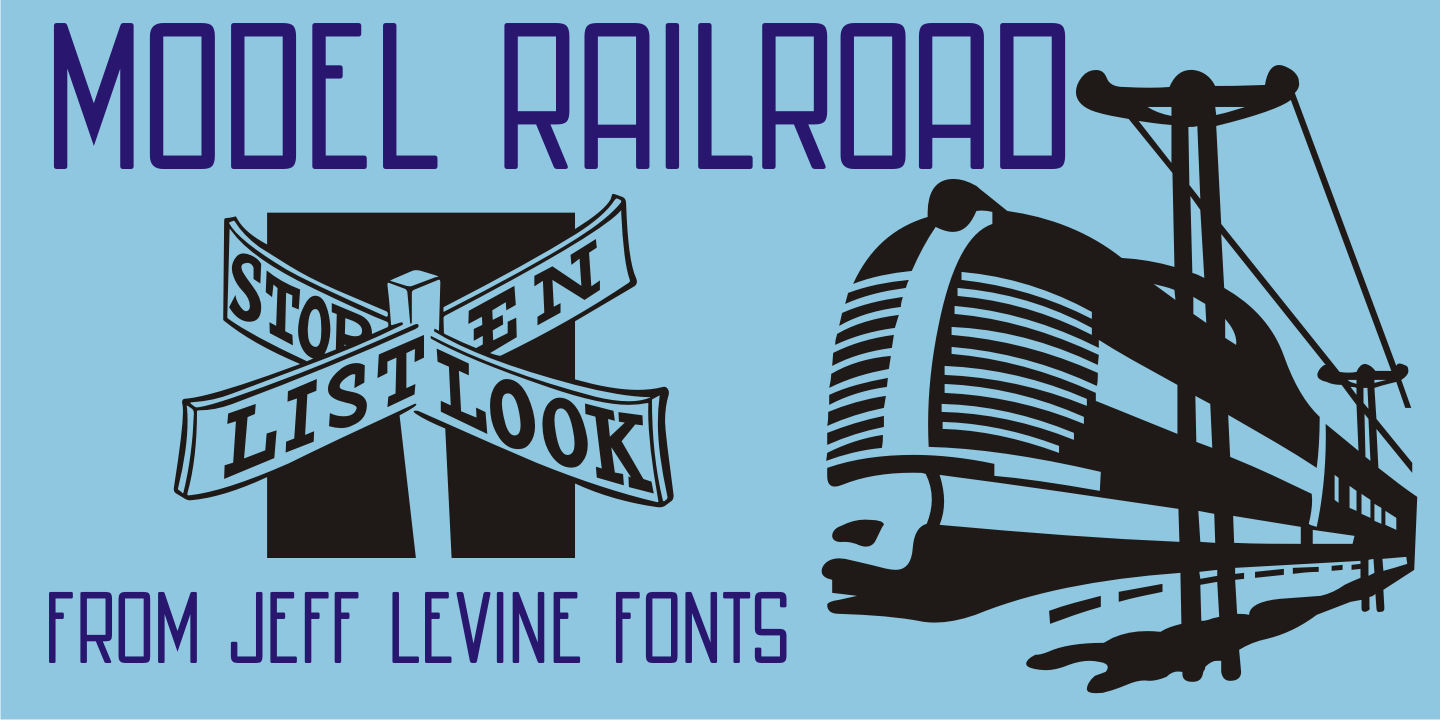
Model Railroad JNL Font is perfect for hobby train shops, model railroad clubs, vintage train museums, railway historical societies, locomotive restoration projects, train enthusiast publications, railroad hobby magazines, miniature railroad displays, steam engine exhibitions, transportation museums, nostalgic railroad advertising, and authentic railway heritage materials.
This font is exciting because it captures the meticulous craftsmanship and passionate dedication of model railroad enthusiasts who recreate entire worlds in miniature scale, featuring precisely detailed letterforms that embody the same exacting attention to authenticity and nostalgic reverence found in hobbyists' basement empires where every tiny signal light works and every miniature building tells a story of America's golden age of railroading. The carefully engineered character design reflects both the technical precision required for scale modeling and the romantic nostalgia for the era when steam locomotives ruled the rails and railroad towns defined American progress. Each letter demonstrates the kind of devoted craftsmanship and historical accuracy that transforms ordinary text into expressions worthy of the most detailed model layouts and authentic railroad heritage.
The Model Railroad JNL Font family includes regular and bold weights with complete character sets featuring railroad-inspired numerals, transportation punctuation marks, and decorative elements reminiscent of vintage train signage, railway schedules, locomotive nameplates, and classic railroad graphics. Advanced versions may offer additional stylistic variants with enhanced vintage railroad effects, alternate characters that reflect authentic railway lettering practices, and ornamental elements that celebrate the golden age of American railroading and model train craftsmanship.
Whether you're developing railroad hobby branding, creating transportation museum materials, or designing nostalgic railway content, Model Railroad JNL Font Free Download provides the authentic craftsmanship and railway heritage your project needs to honor both the golden age of railroading and the passionate dedication of model train enthusiasts who keep railroad history alive through meticulous miniature recreation. This typeface transforms ordinary text into railway declarations that celebrate the precision of scale modeling and the romance of railroad history. The font's crafted character makes it essential for hobby shops and organizations that serve railroad enthusiasts and transportation history lovers. Model railroad hobbyists and railway heritage preservationists will appreciate how this font brings authentic railroad tradition to their work with its genuinely crafted and historically accurate character that honors both real railroads and their miniature recreations.